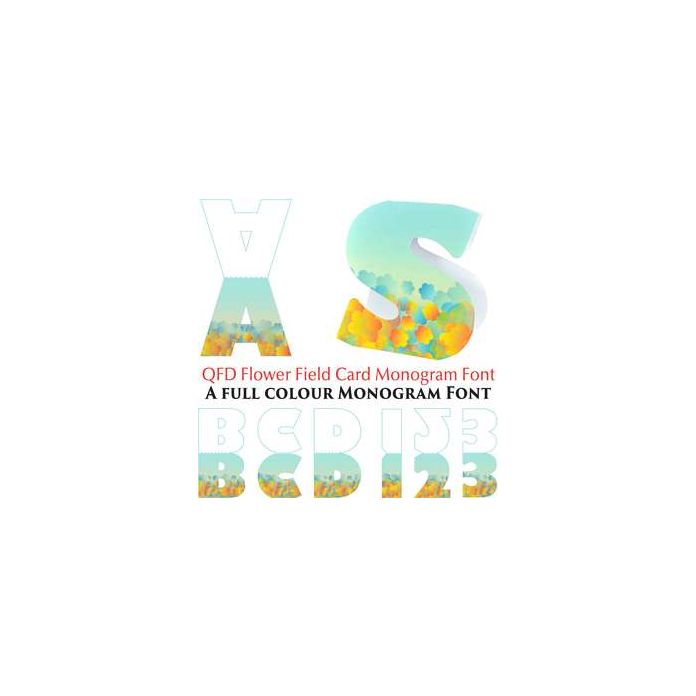
qfd flower field monogram card colour font
Wow, what a fast way to make a card! Just choose the letter, choose the font and print and cut the card! So easy, you’ll love it! Please note this font is compatible in Silhouette Studio and some other softwares, but will show as a filled-in solid when used with incompatible programs. See more about our fonts (including tutorials) by clicking the Instructions button.